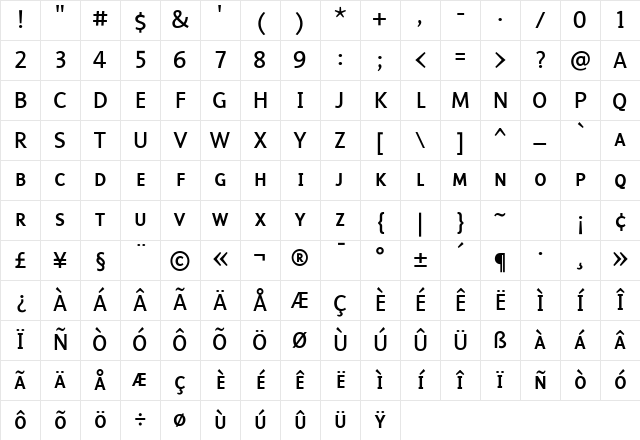
Complete Malcom Regular glyph index. Displaying only characters natively supported by Malcom Regular font.
Malcom is a composed and adaptable typeface that performs quietly and consistently across a wide range of design contexts.